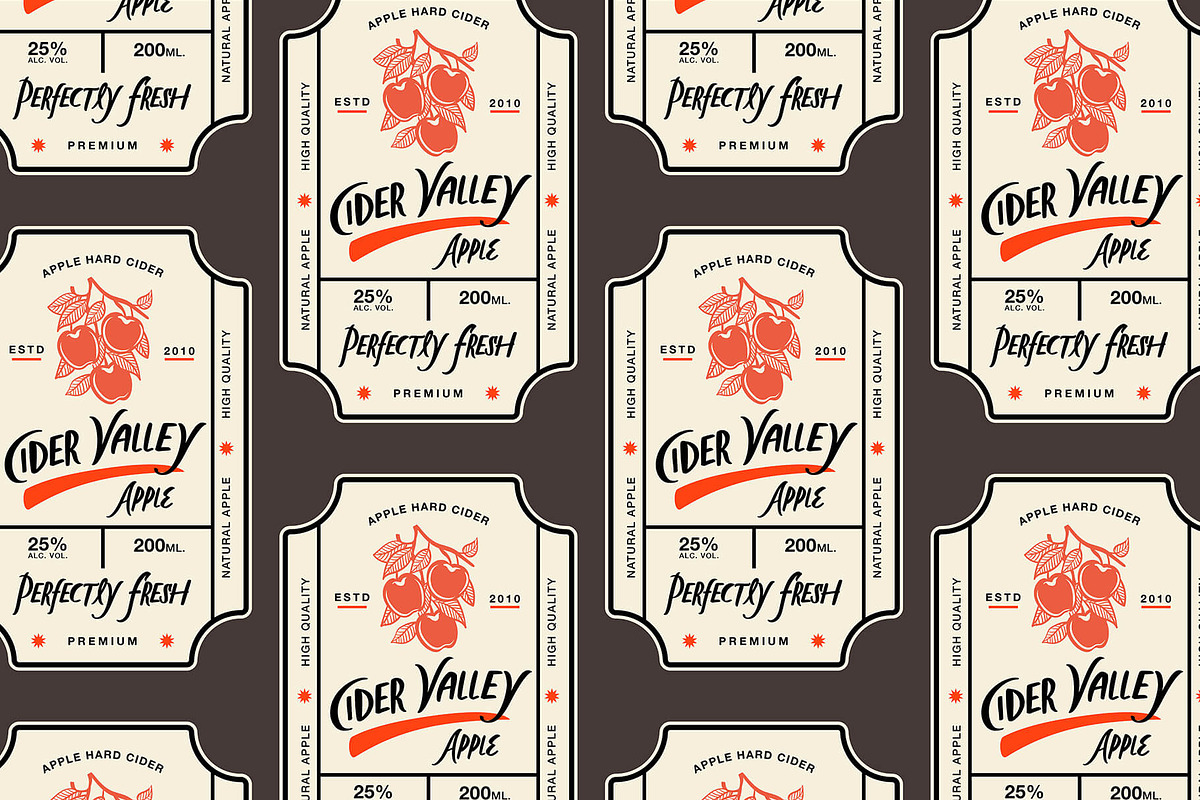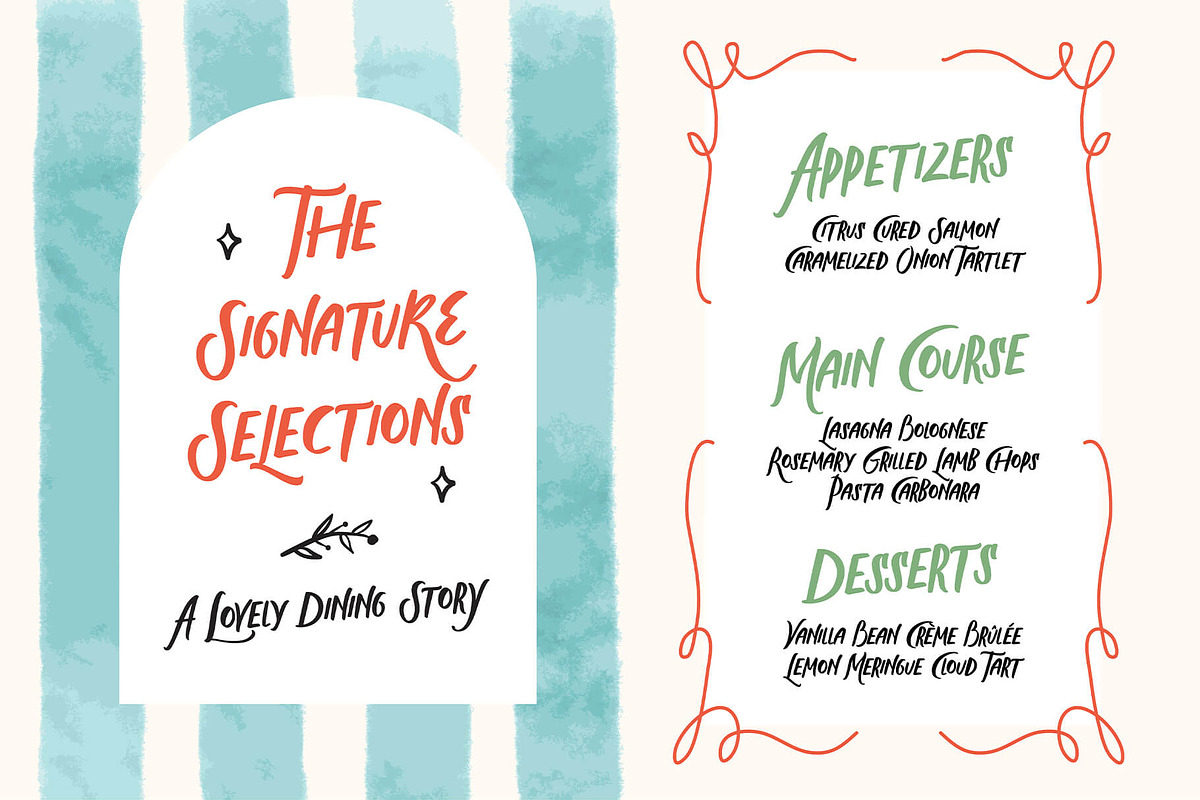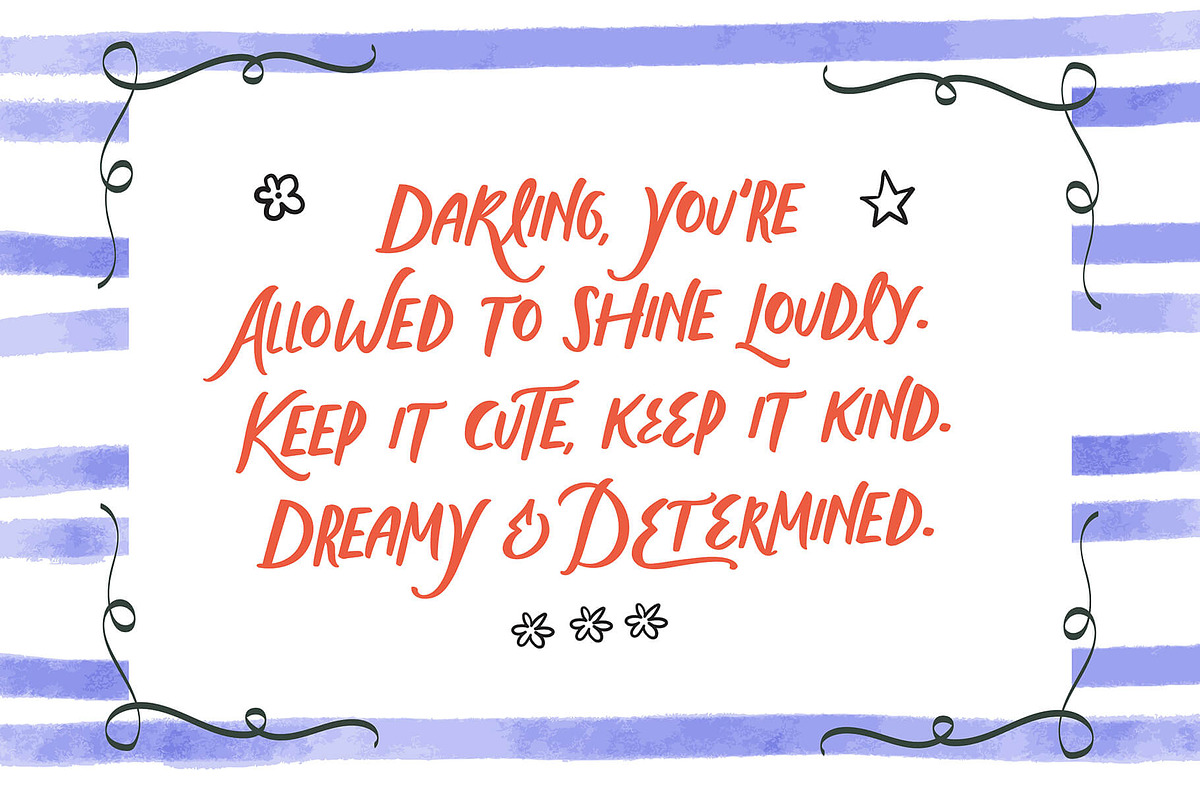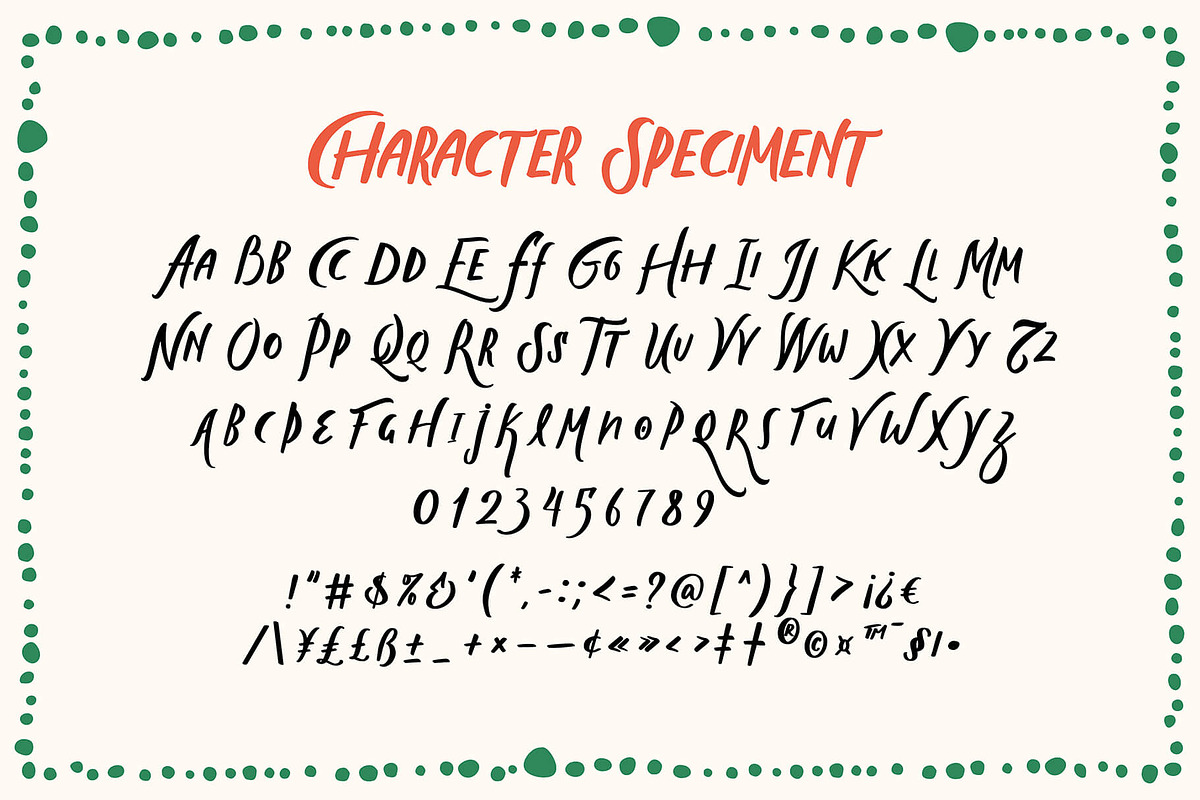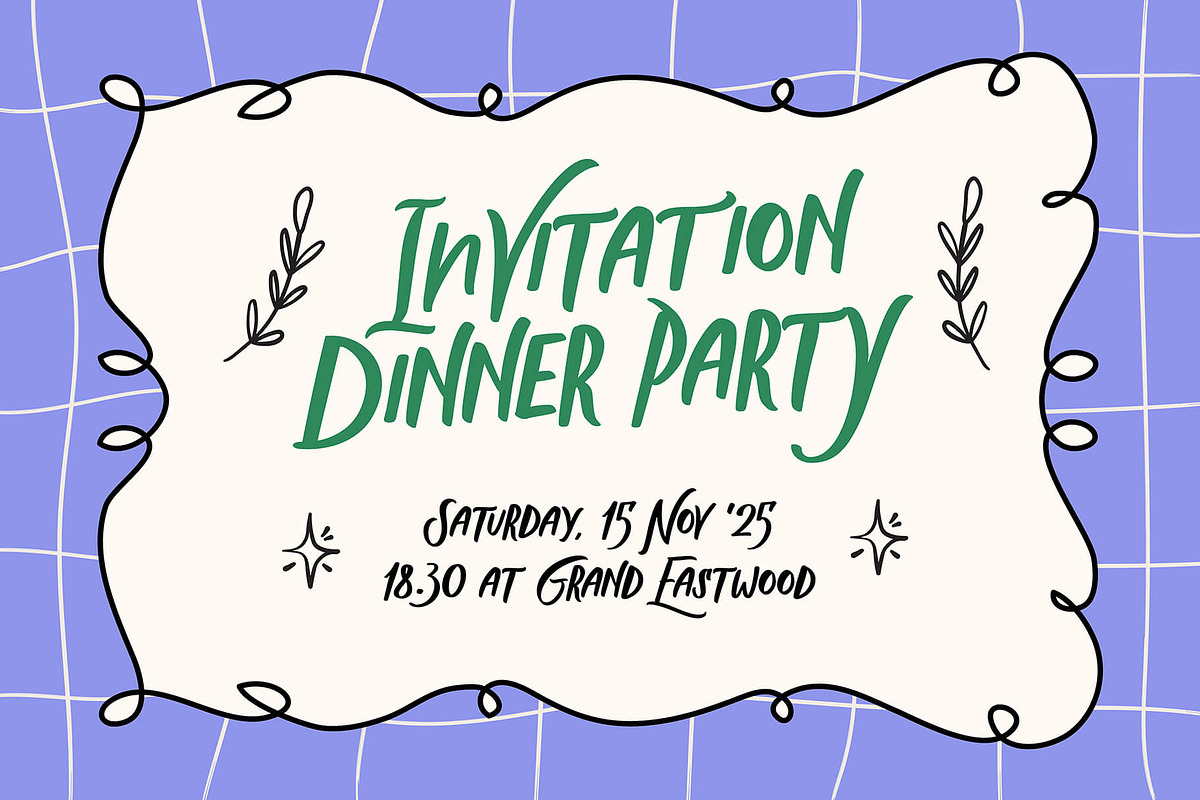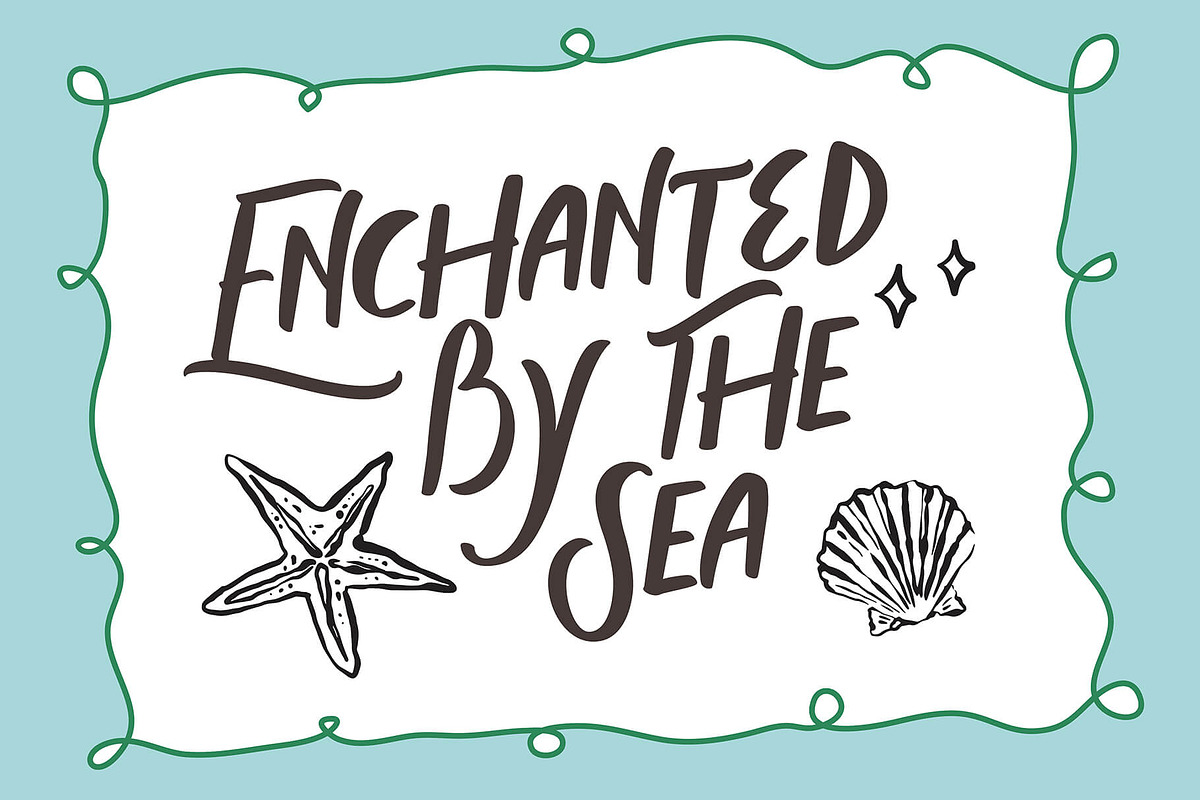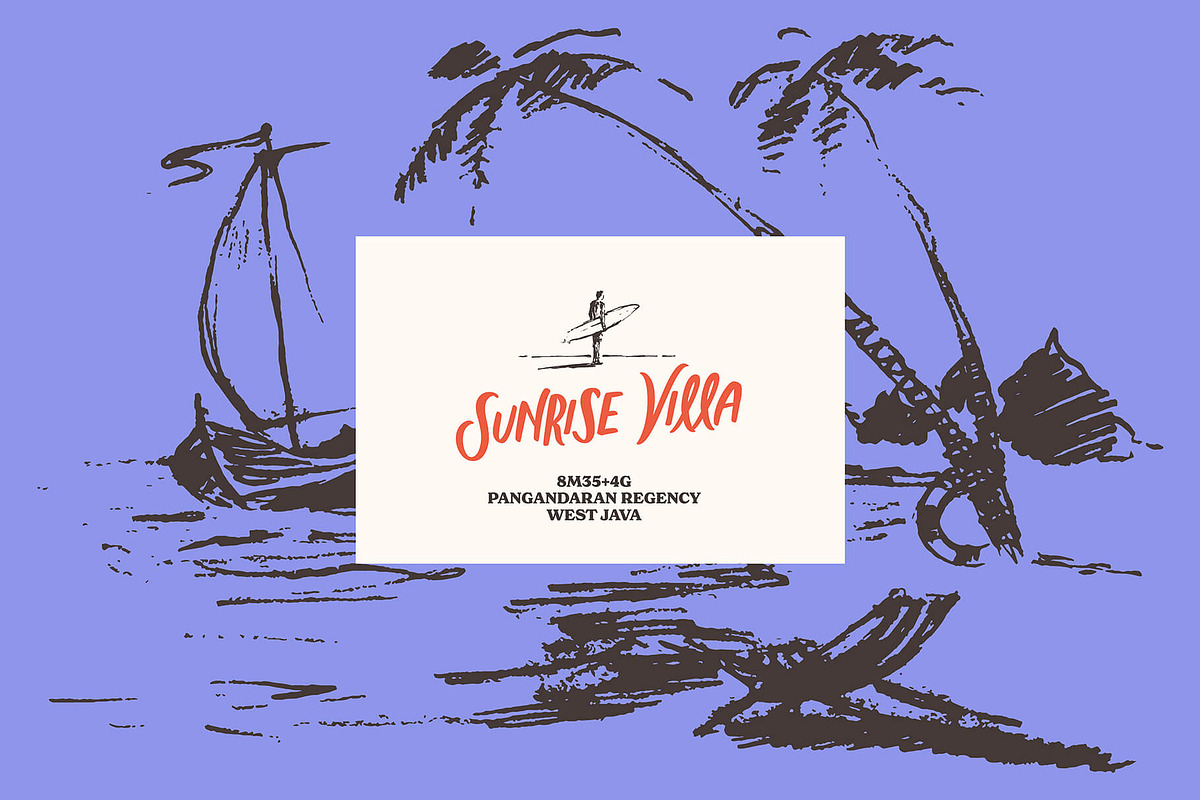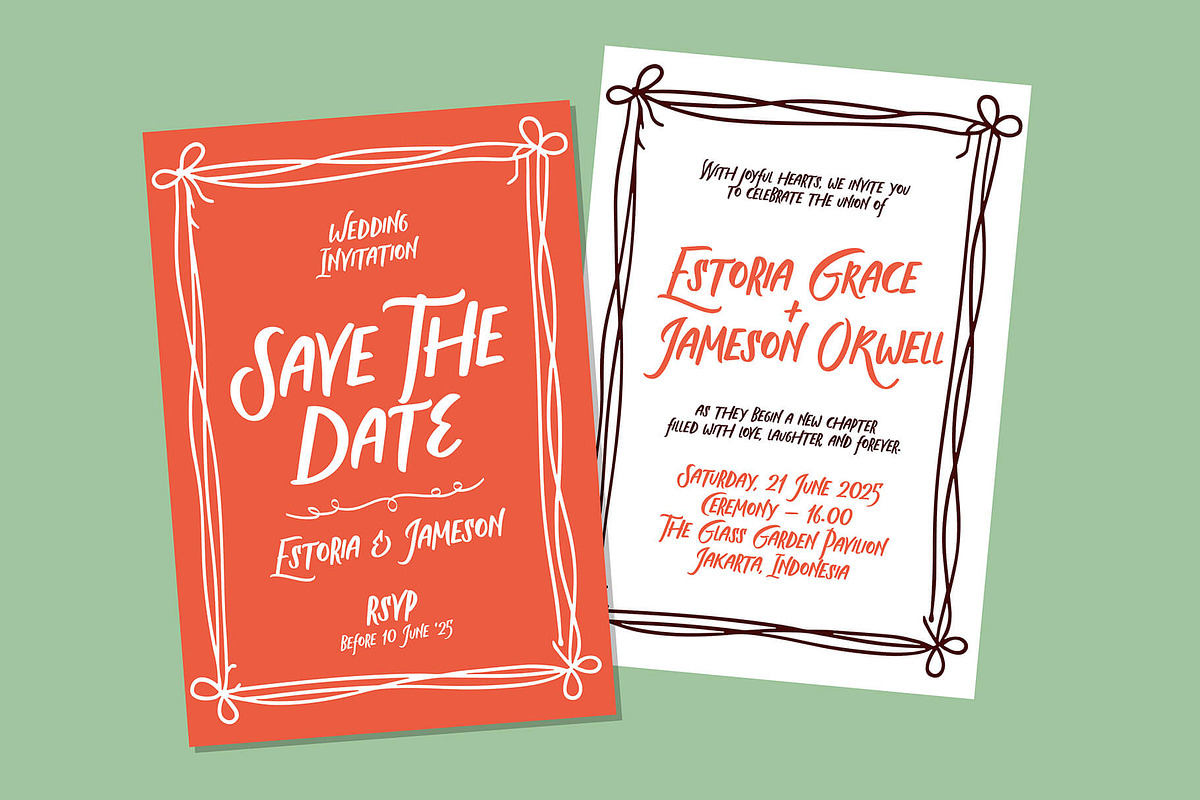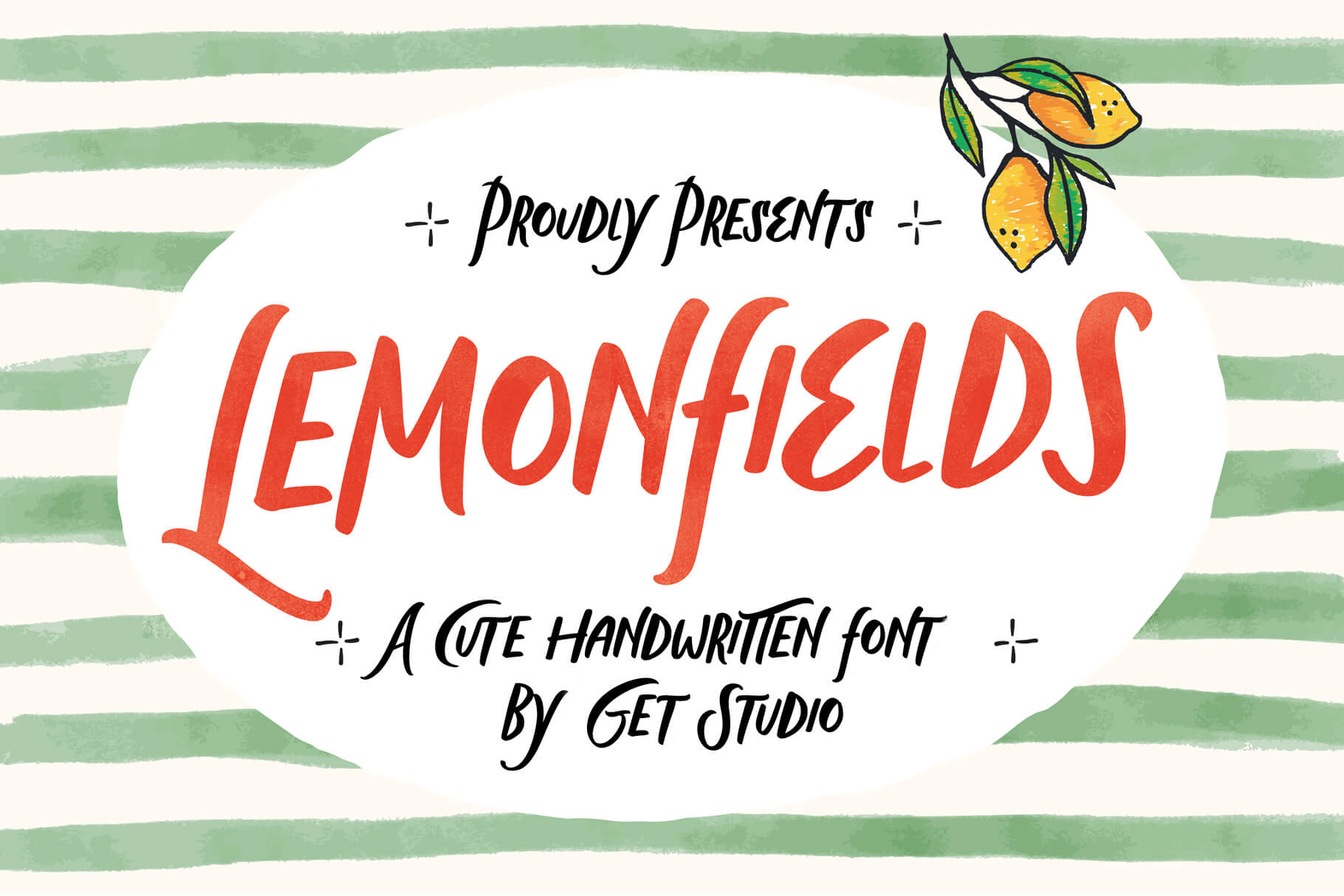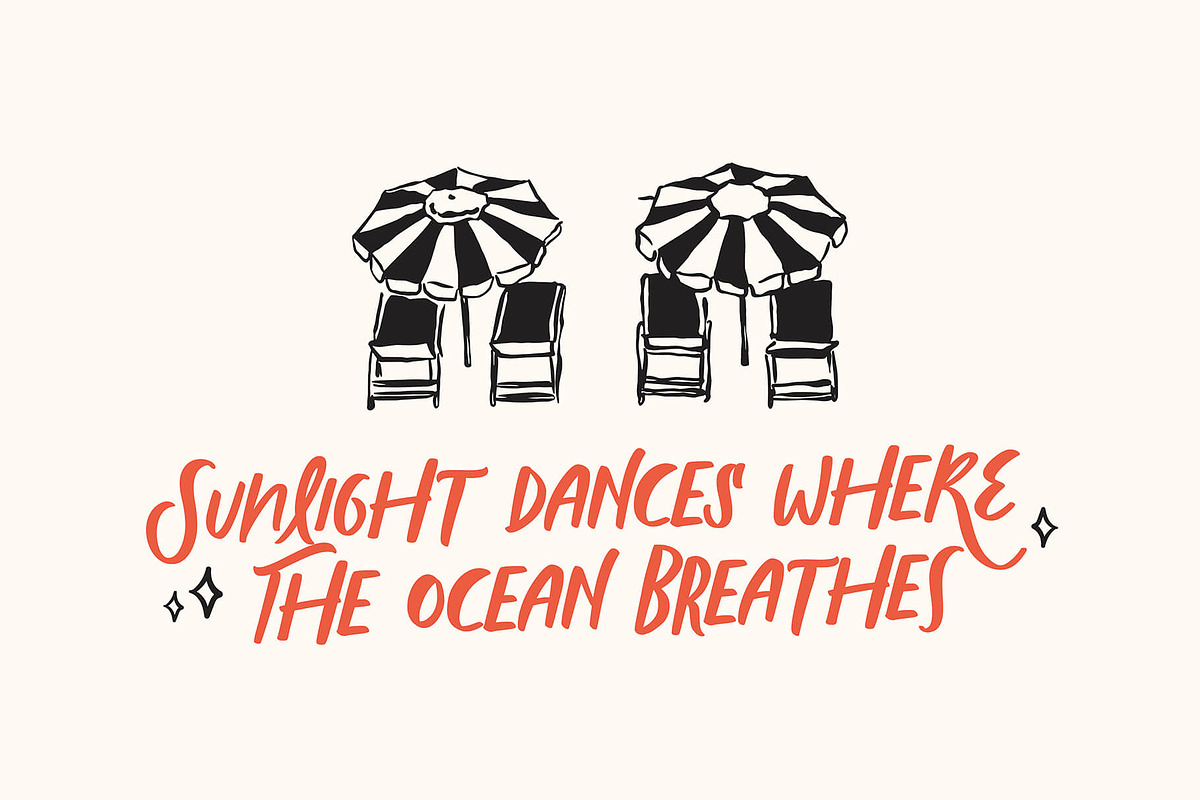
Lemonfields - Cute Handwritten Font
Lemonfields is a lively handwritten font that captures the warmth and spontaneity of true hand-drawn lettering. With its playful strokes, soft curves, and expressive rhythm, this font delivers a friendly, uplifting personality that instantly brightens any design. It feels natural, imperfect in all the right ways, and full of movement—just like handwriting that flows effortlessly across the page.
Perfect for branding, invitations, packaging, social media posts, and creative marketing, Lemonfields adds a cheerful and approachable atmosphere to your work. Its cute handwritten style makes every message feel more personal and engaging, helping your designs stand out with charm and authenticity. This is the kind of font that makes people smile—and regret not grabbing it sooner.